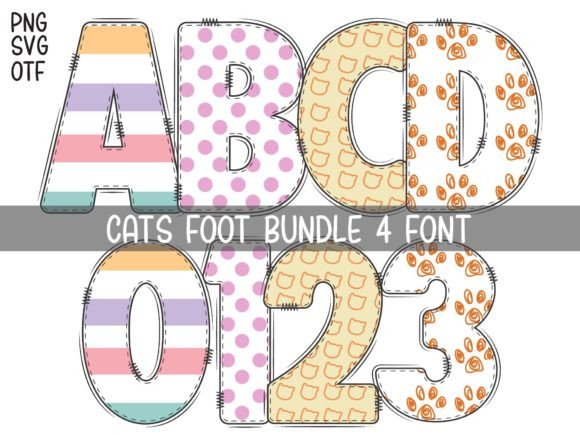
Get ready to embark on a typographic adventure with Cats Foot Font, the charming and colorful font family that will make your designs purr-fect! Created by the talented Font Design Market, this font is a delightful blend of whimsy and sophistication, effortlessly adding a touch of magic to any project.
Cats Foot Font is not just another font; it's a feline fantasy come to life. With its playful cat-themed characters, this font brings a smile to your face and a spring to your step. Whether you're creating invitations, posters, greeting cards, or social media posts, Cats Foot Font will transform your words into captivating works of art.
But don't let its�愛ら�� fool you; Cats Foot Font is also a versatile performer, capable of handling a wide range of design tasks. Its clean and legible letterforms ensure that your message is always clear and easy to read, even at small sizes. And with its extensive character set, including multilingual support, Cats Foot Font can cater to a global audience.